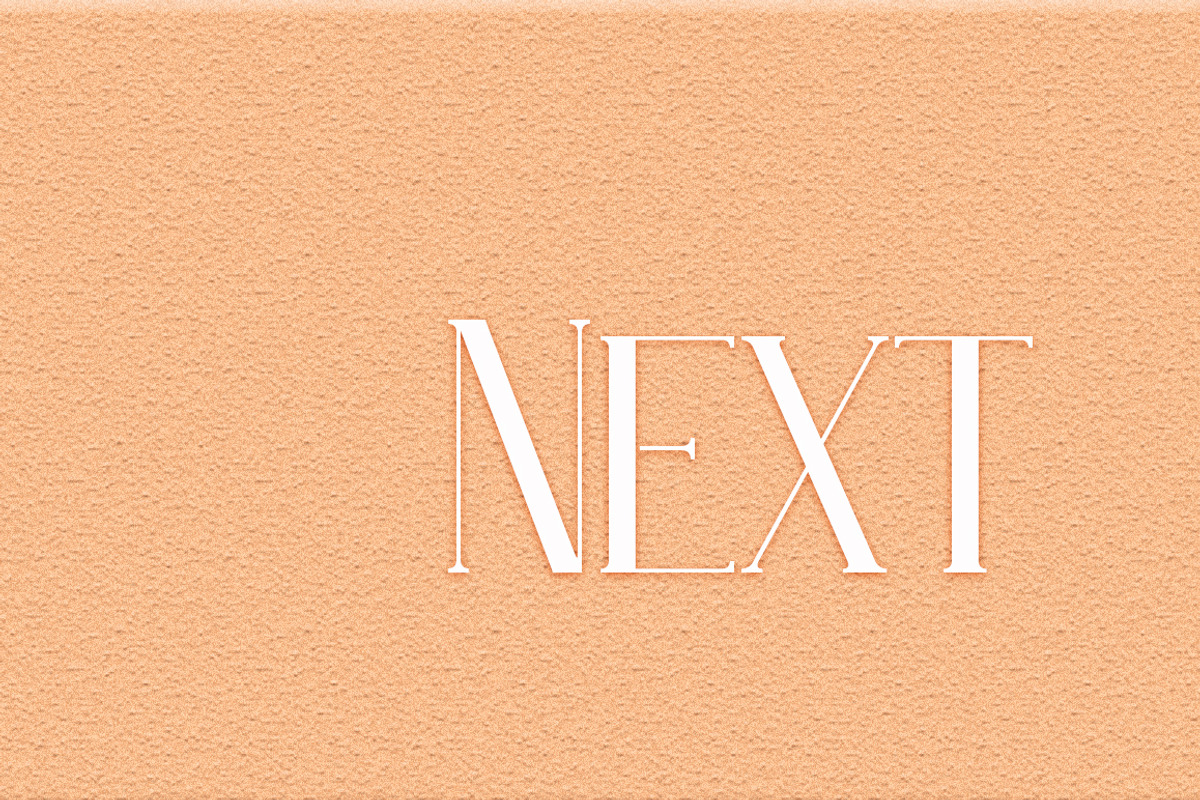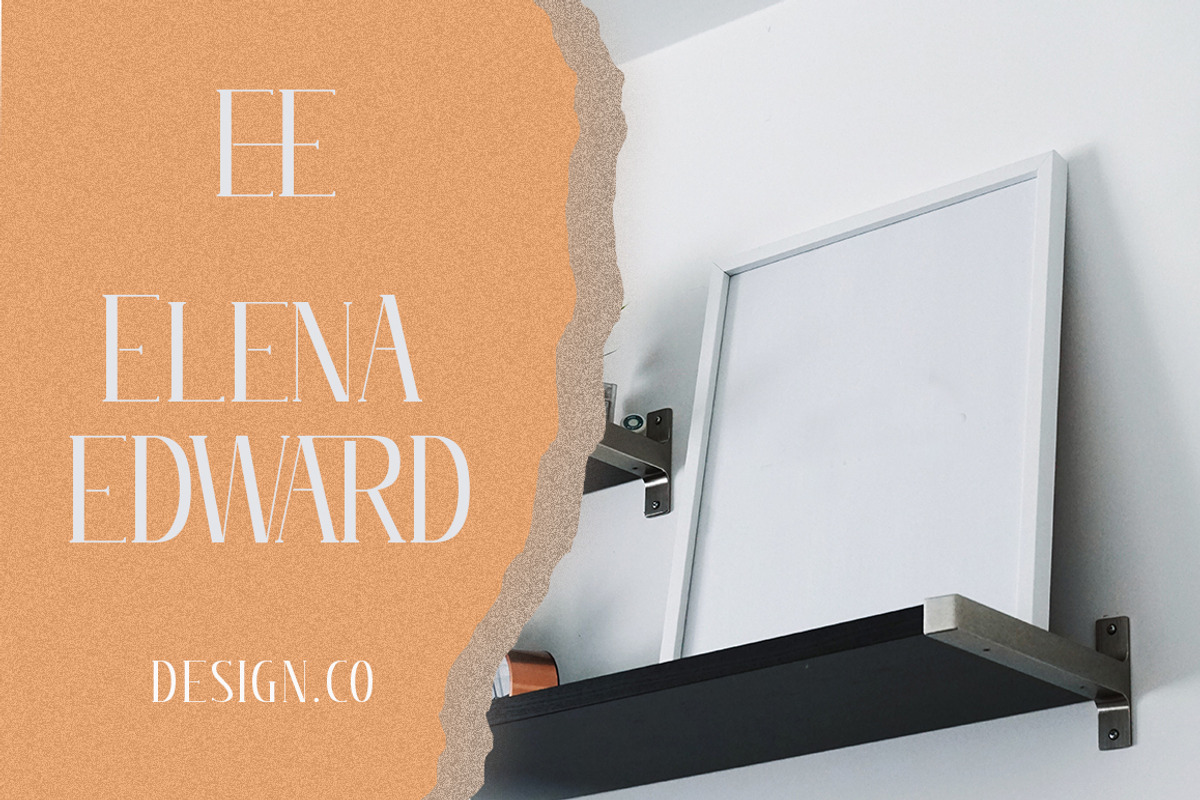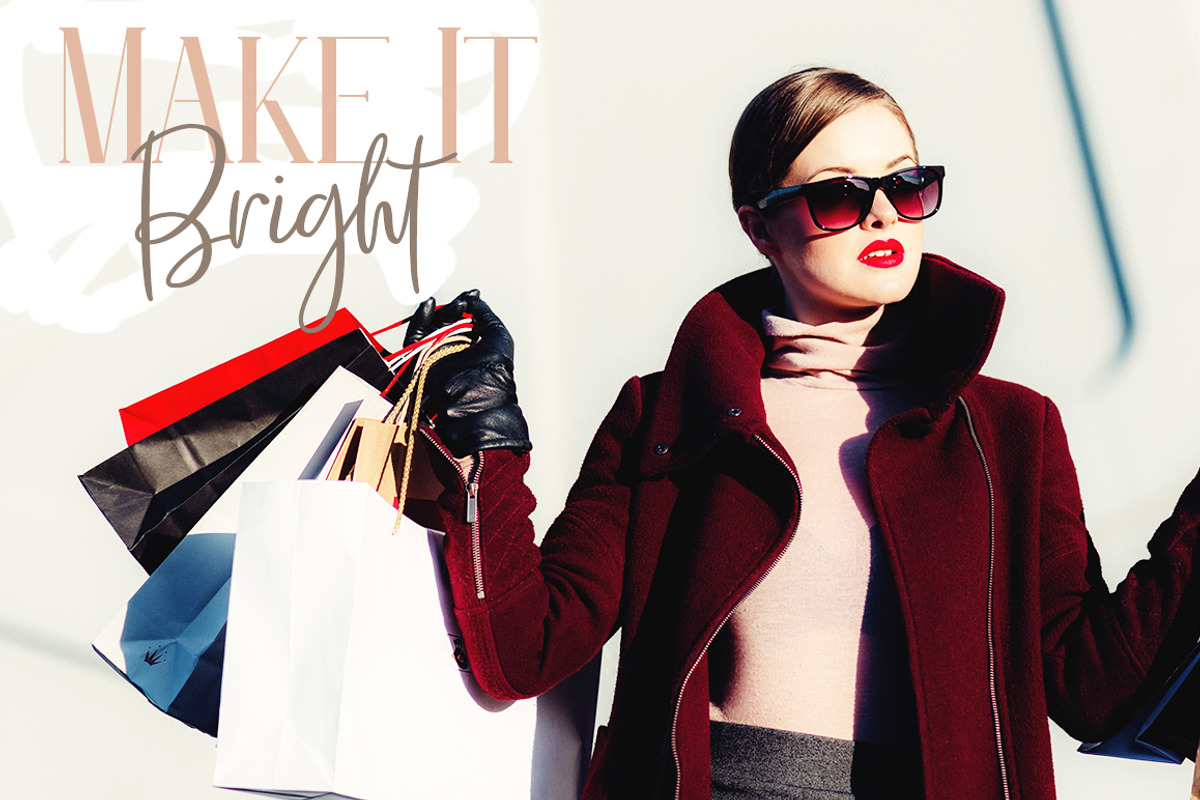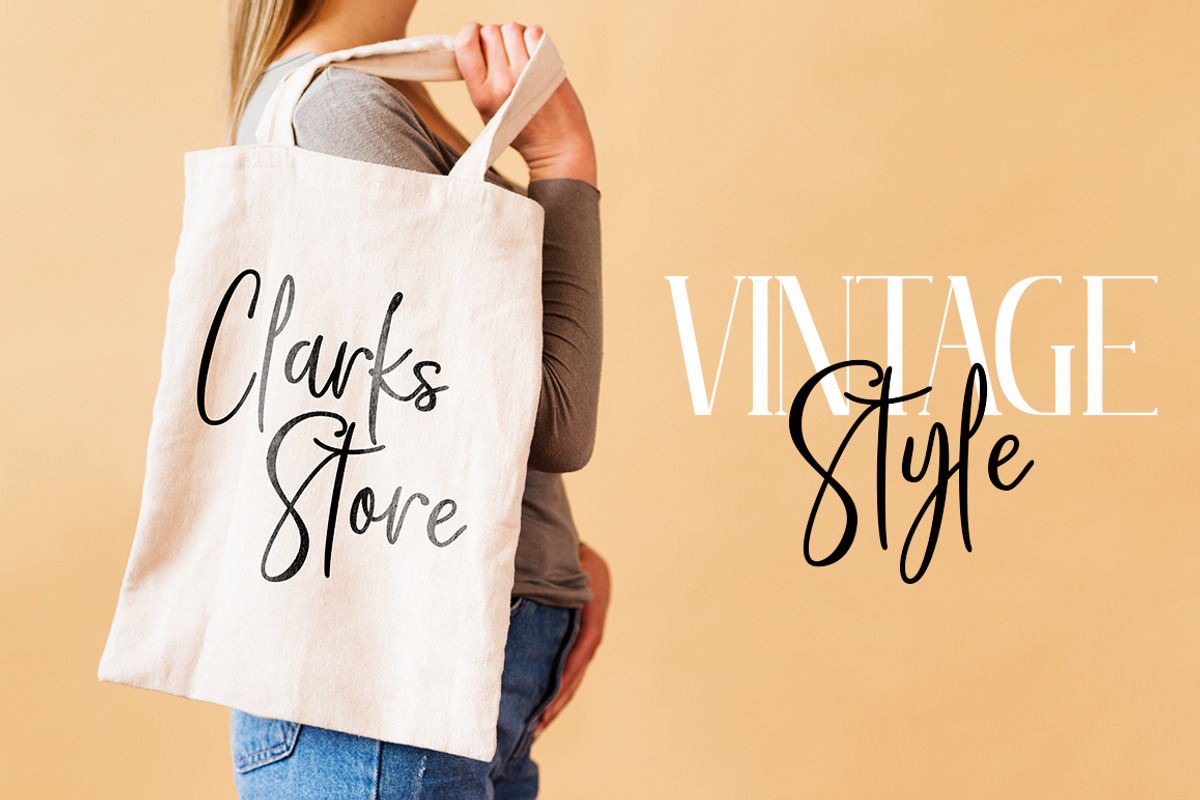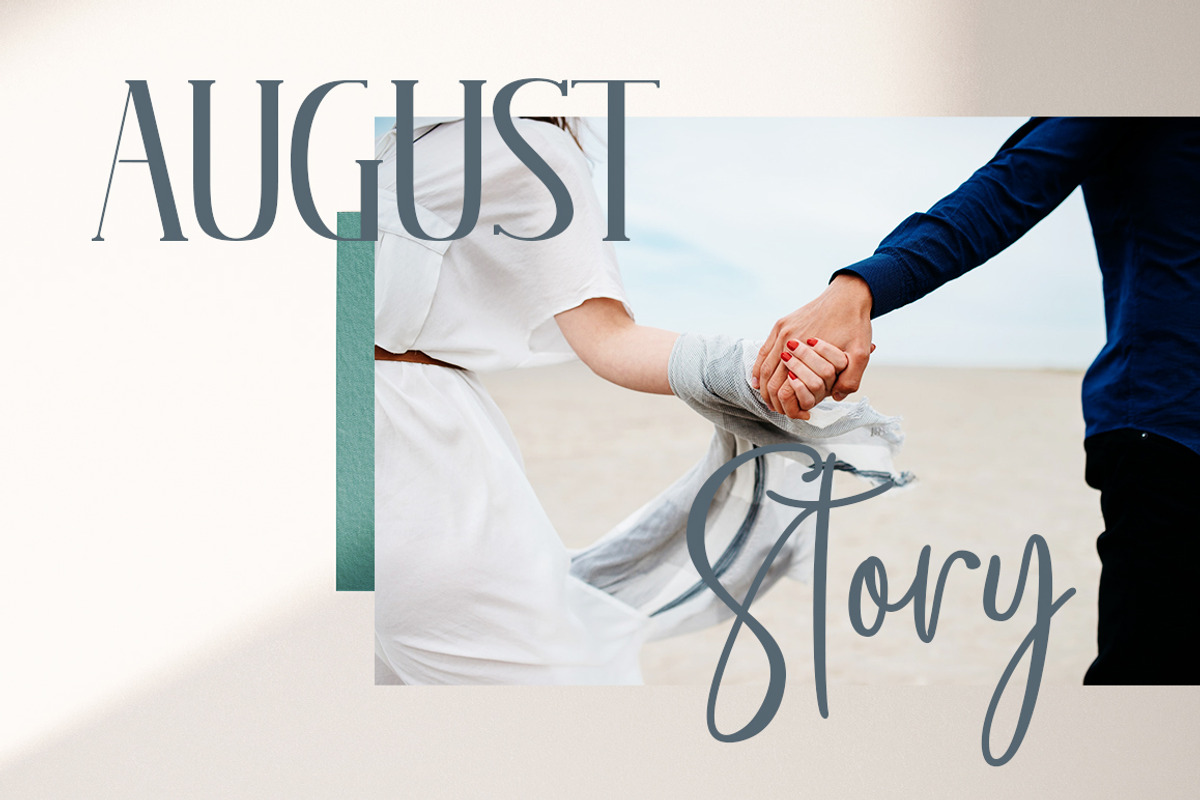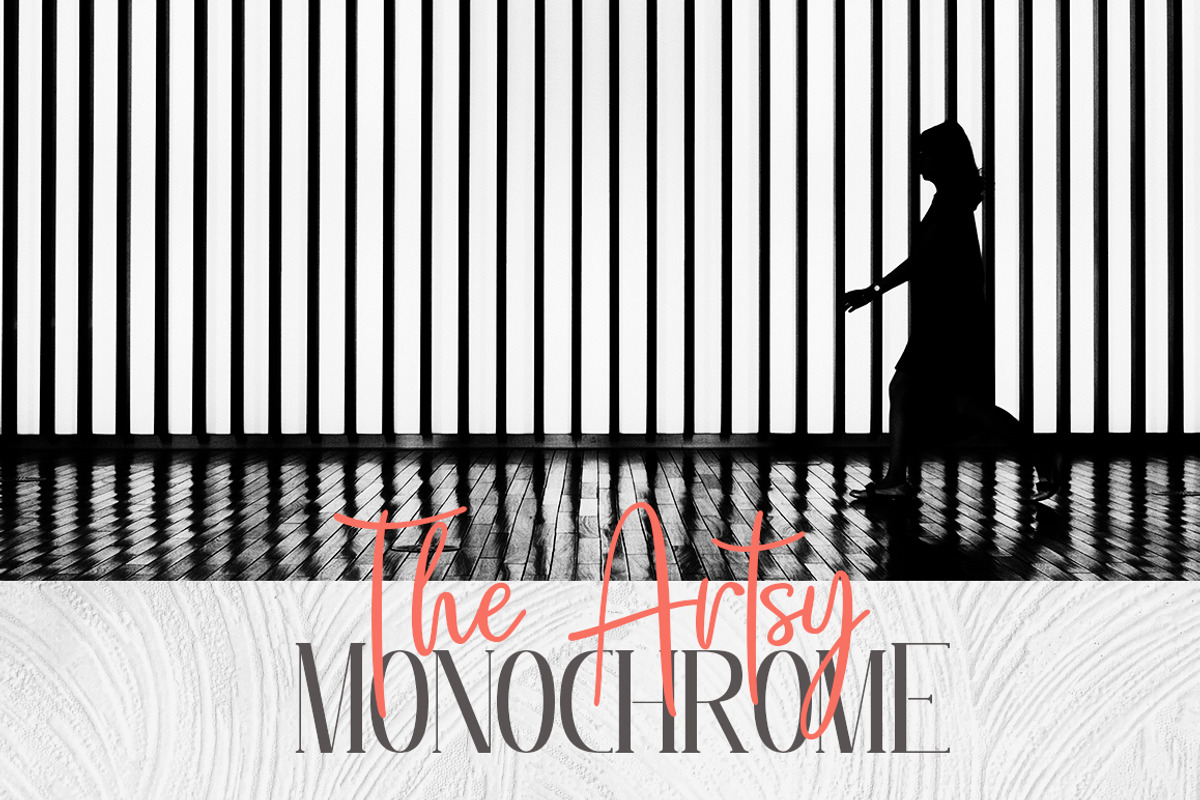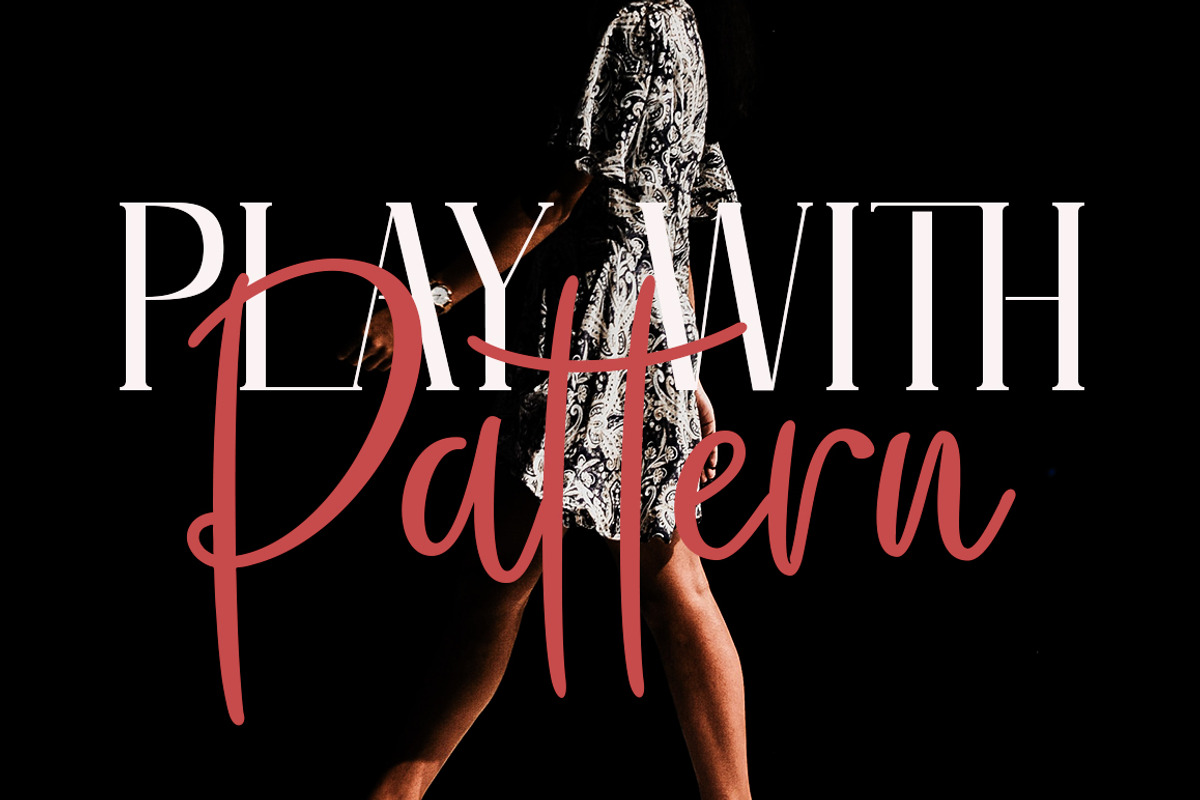
Steady Stream Font Duo
Steady Stream is a fresh modern script & luxury serif uppercase.
This duo features script scripts that are truly handmade that feature ligatures and a refined uppercase serif font, allowing you to create unique designs that suit your needs. This free font installation is perfect for branding & logo designs, magazine and editorial designs, cards & stationery, and more!
Steady Stream uppercase serif
And this script included multilingual support